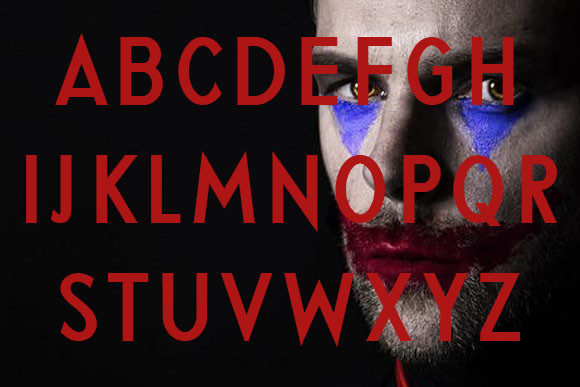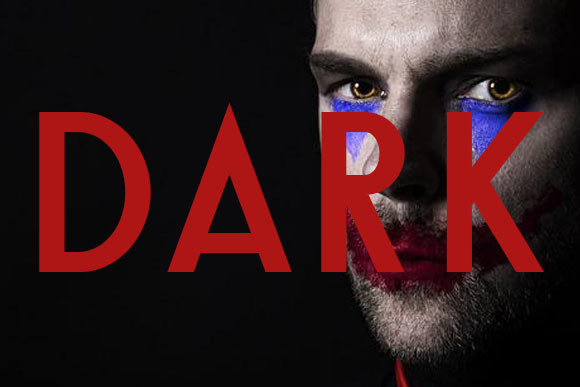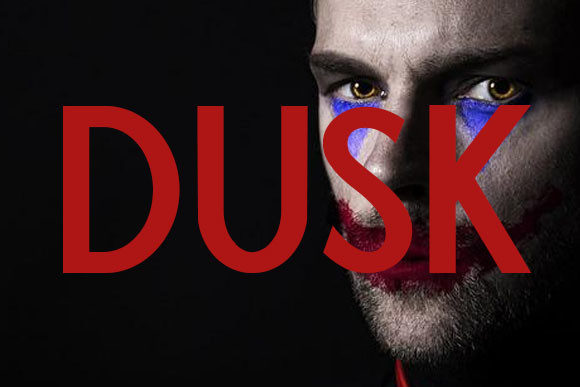
Gothamic Font: Elevate Your Designs with a Sharp and Elegant Sans Serif Typeface
In the world of typography, a font can make or break a design. For designers and crafters looking to elevate their projects, Gothamic Font is an excellent choice. This sharp and elegant sans serif typeface is perfect for creating stunning posters, flyers, banners, and prints that demand attention. In this article, we’ll explore the features and benefits of Gothamic Font, and why it’s a must-have for any designer or crafter looking to take their designs to the next level.
What is Gothamic Font?
Gothamic Font is a modern sans serif typeface that exudes sophistication and elegance. Its sharp lines and clean design make it perfect for a wide range of applications, from print materials to digital designs. The font’s sleek and minimalist aesthetic ensures that it will complement any design, without overpowering it.
Key Features of Gothamic Font
- Sharp and Elegant Design: Gothamic Font features a sharp and elegant design that is perfect for creating sophisticated and modern designs.
- Sans Serif Typeface: The font’s sans serif design ensures that it is clean and easy to read, making it perfect for body text and headlines.
- Highly Versatile: Gothamic Font is highly versatile and can be used for a wide range of applications, from print materials to digital designs.
- Easy to Read: The font’s clean design and generous letter spacing ensure that it is easy to read, even at small sizes.
Benefits of Using Gothamic Font
So, why should you choose Gothamic Font for your next design project? Here are just a few benefits of using this amazing font:
- Instant Professionalism: Gothamic Font adds an instant touch of professionalism to any design, making it perfect for businesses and individuals looking to create a strong brand identity.
- Improved Readability: The font’s clean design and generous letter spacing ensure that text is easy to read, even at small sizes.
- Enhanced Creativity: Gothamic Font’s sleek and minimalist aesthetic gives designers and crafters the freedom to get creative and experiment with different design ideas.
How to Use Gothamic Font
Using Gothamic Font is easy. Here are a few tips to get you started:
- Pair it with Other Fonts: Gothamic Font pairs well with other sans serif fonts, as well as serif fonts. Experiment with different font combinations to create a unique look.
- Experiment with Font Sizes: Gothamic Font looks great at a wide range of font sizes, from small body text to large headlines.
- Use it for Headlines and Body Text: The font’s clean design and generous letter spacing make it perfect for both headlines and body text.
In conclusion, Gothamic Font is a sharp and elegant sans serif typeface that is perfect for designers and crafters looking to elevate their designs. Its clean design, generous letter spacing, and highly versatile nature make it perfect for a wide range of applications, from print materials to digital designs. Whether you’re looking to create stunning posters, flyers, banners, or prints, Gothamic Font is an excellent choice. So why wait? Download Gothamic Font today and take your designs to the next level!
- What is Gothamic Font? Gothamic Font is a sharp and elegant sans serif typeface.
- What is Gothamic Font used for? Gothamic Font is perfect for creating stunning posters, flyers, banners, and prints.
- Is Gothamic Font easy to read? Yes, Gothamic Font is easy to read, even at small sizes.